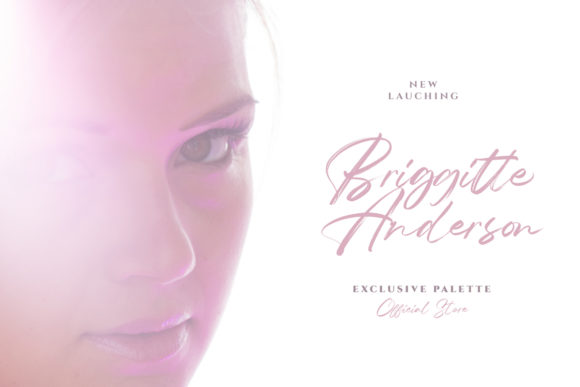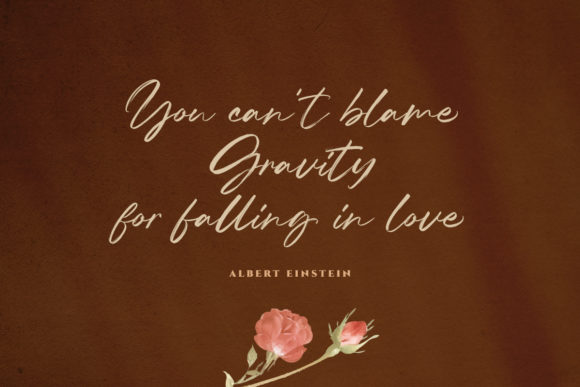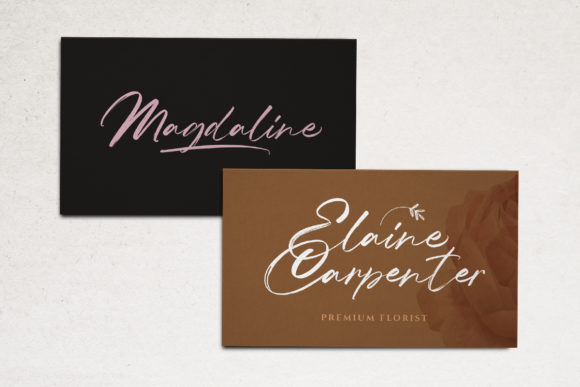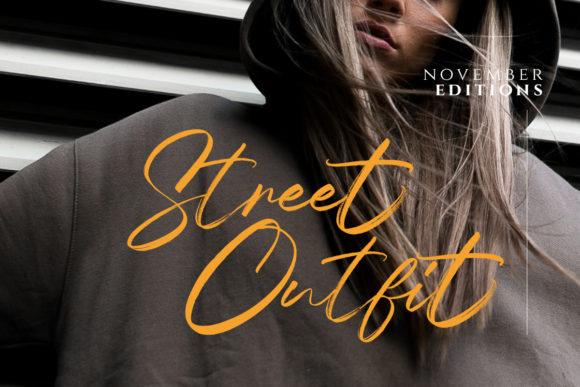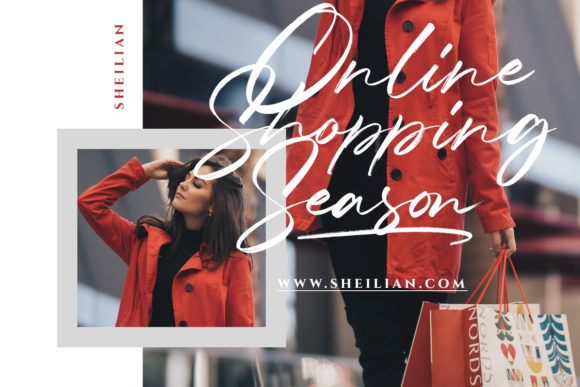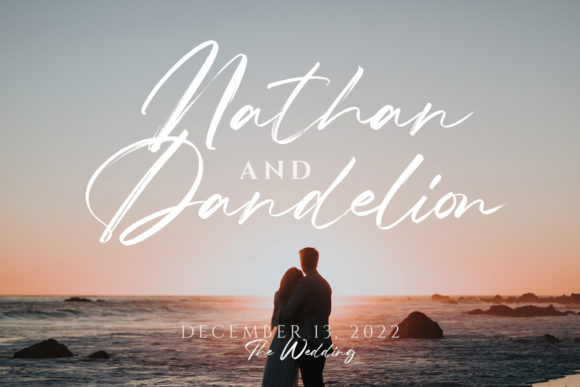
Introducing Compania Font: A Delicate and Tasteful Handwritten Font
Are you looking for a font that adds a touch of elegance and sophistication to your designs? Look no further than Compania Font, a beautiful handwritten font designed with the help of an outstanding brush pen. With its delicate and tasteful appearance, Compania Font is perfect for designers and crafters who want to add a personal touch to their work.
What Makes Compania Font Special?
Compania Font is a PUA encoded font, which means you can access all of the glyphs and swashes with ease. This font features a varying baseline, smooth lines, gorgeous glyphs, and stunning alternates. The unique combination of these features creates a truly unique and eye-catching font that will make your designs stand out.
Characteristics of Compania Font
- Delicate and Tasteful: Compania Font has a delicate and tasteful appearance that is perfect for designs that require a touch of elegance.
- Handwritten: This font is designed to look like it was written with a brush pen, giving it a personal and unique touch.
- PUA Encoded: Compania Font is PUA encoded, making it easy to access all of the glyphs and swashes.
- Varying Baseline: The font features a varying baseline, which adds to its unique and handmade appearance.
- Smooth Lines: Compania Font has smooth lines that give it a fluid and natural look.
- Gorgeous Glyphs: The font includes a range of gorgeous glyphs that can be used to add visual interest to your designs.
- Stunning Alternates: Compania Font also includes stunning alternates that can be used to add variety to your designs.
Uses for Compania Font
Compania Font is a versatile font that can be used for a wide range of design projects. Here are a few ideas to get you started:
- Branding: Use Compania Font to create elegant and sophisticated brand identities.
- Packaging: Add a personal touch to your packaging designs with Compania Font.
- Invitations: Create beautiful and unique invitations with Compania Font.
- Social Media Graphics: Use Compania Font to create eye-catching social media graphics.
- Blogging: Add a touch of elegance to your blog with Compania Font.
Tips for Using Compania Font
Here are a few tips for using Compania Font in your designs:
- Use it sparingly: Compania Font is a statement font, so use it sparingly to add emphasis to your designs.
- Experiment with colors: Compania Font looks great in a range of colors, so don’t be afraid to experiment.
- Pair it with other fonts: Compania Font can be paired with other fonts to create a unique and interesting look.
Compania Font is a beautiful and versatile handwritten font that is perfect for designers and crafters who want to add a touch of elegance and sophistication to their designs. With its delicate and tasteful appearance, PUA encoding, and range of glyphs and swashes, Compania Font is a must-have font for any designer or crafter.